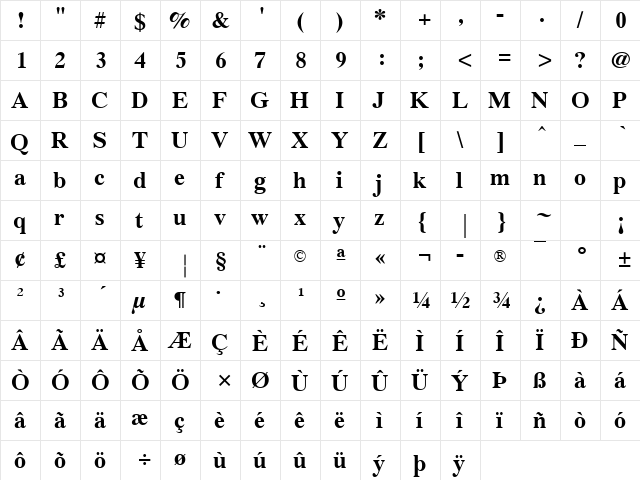
PC Tennessee Bold
Design Context for PC Tennessee Typeface
PC Tennessee offers clean, dependable letterforms without strong stylistic allegiance, making it a practical choice for designers who need flexibility. The heavy weight commands attention and anchors typographic hierarchies.